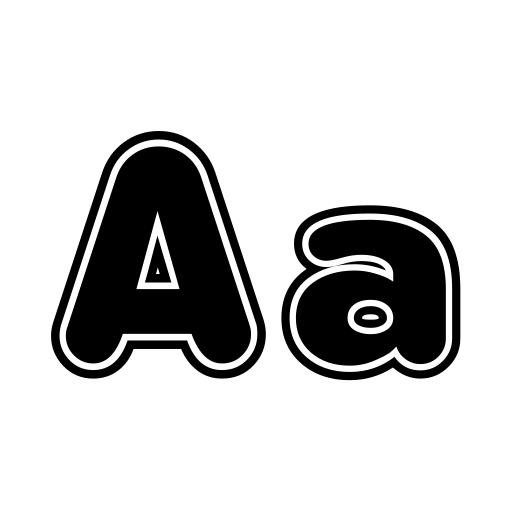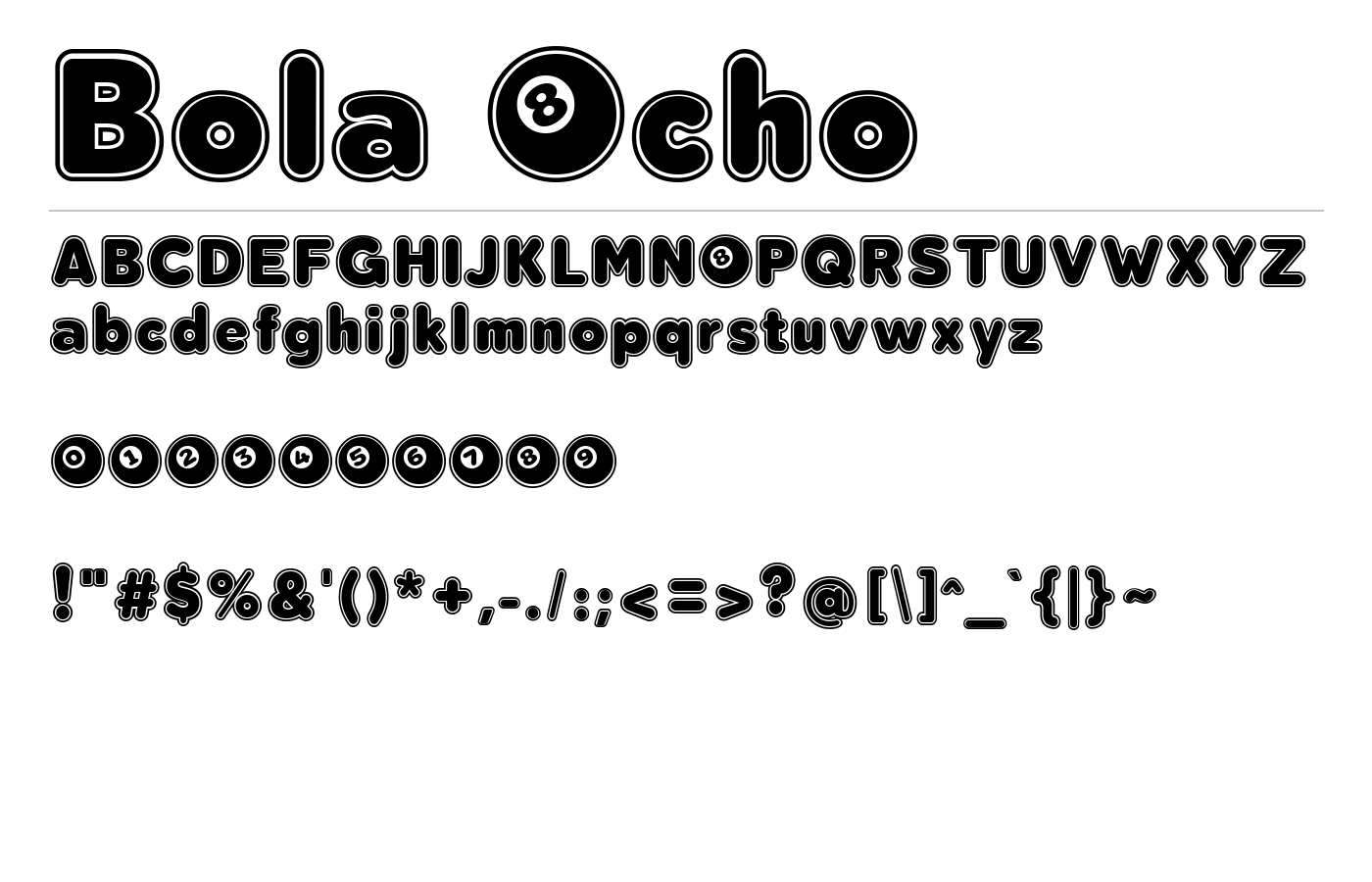
Bola Ocho is a bold, playful sans serif font with rounded letterforms and a distinctive double-layered outline that gives it a fun, retro vibe reminiscent of classic arcade or billiard themes. Its uniform weight and generous spacing make it ideal for eye-catching headlines, logos, and creative branding where a lively, approachable personality is desired. This font works especially well in entertainment, sports, and youth-focused projects that benefit from a memorable and cheerful style.
Bola Ocho Font
About Bola Ocho Font